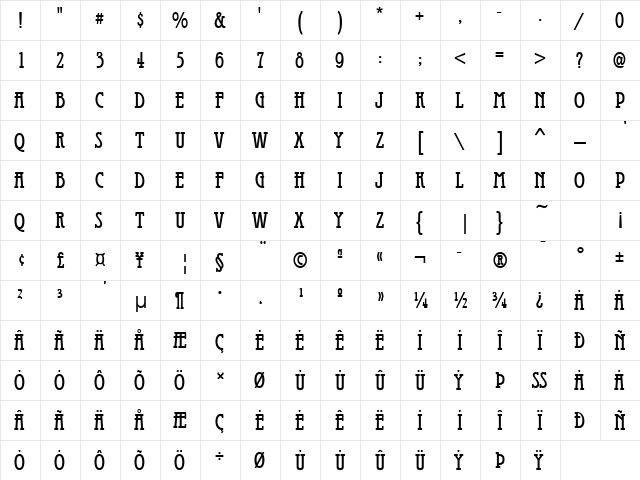
Galadriel Regular
Design Context for Galadriel Typeface
Galadriel is a composed and adaptable typeface that performs quietly and consistently across a wide range of design contexts.